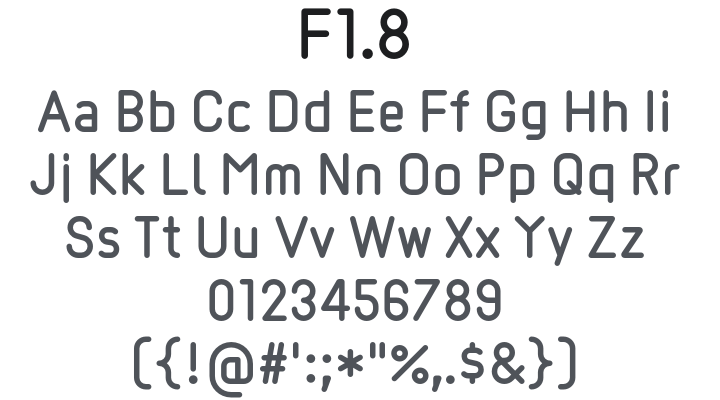
F1.8 Font
by dot colon
About F1.8
F1.8 is a sans-serif font featuring strokes of uniform width, adhering to the fundamental rules of mechanical engraving typefaces.
Unlike F5.6, which incorporates visual adjustments, F1.8 pursues a character design that can be faithfully reproduced purely through mechanical machining. Although initially intended as an updated version of F5.6, the concept shifted significantly, leading to its release as a distinct font.